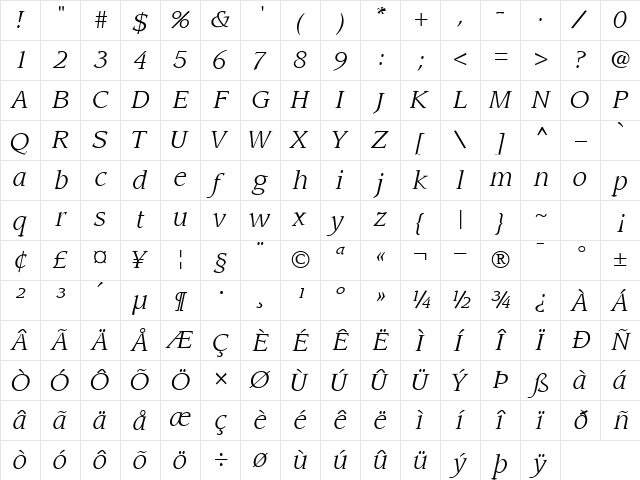
AdvisorSSK is a composed and adaptable typeface that performs quietly and consistently across a wide range of design contexts. The slanted form adds forward momentum and visual energy.
Pro Tip: Use AdvisorSSK for emphasis, pull quotes, and subheadings where its slanted energy can add rhythm to the layout.